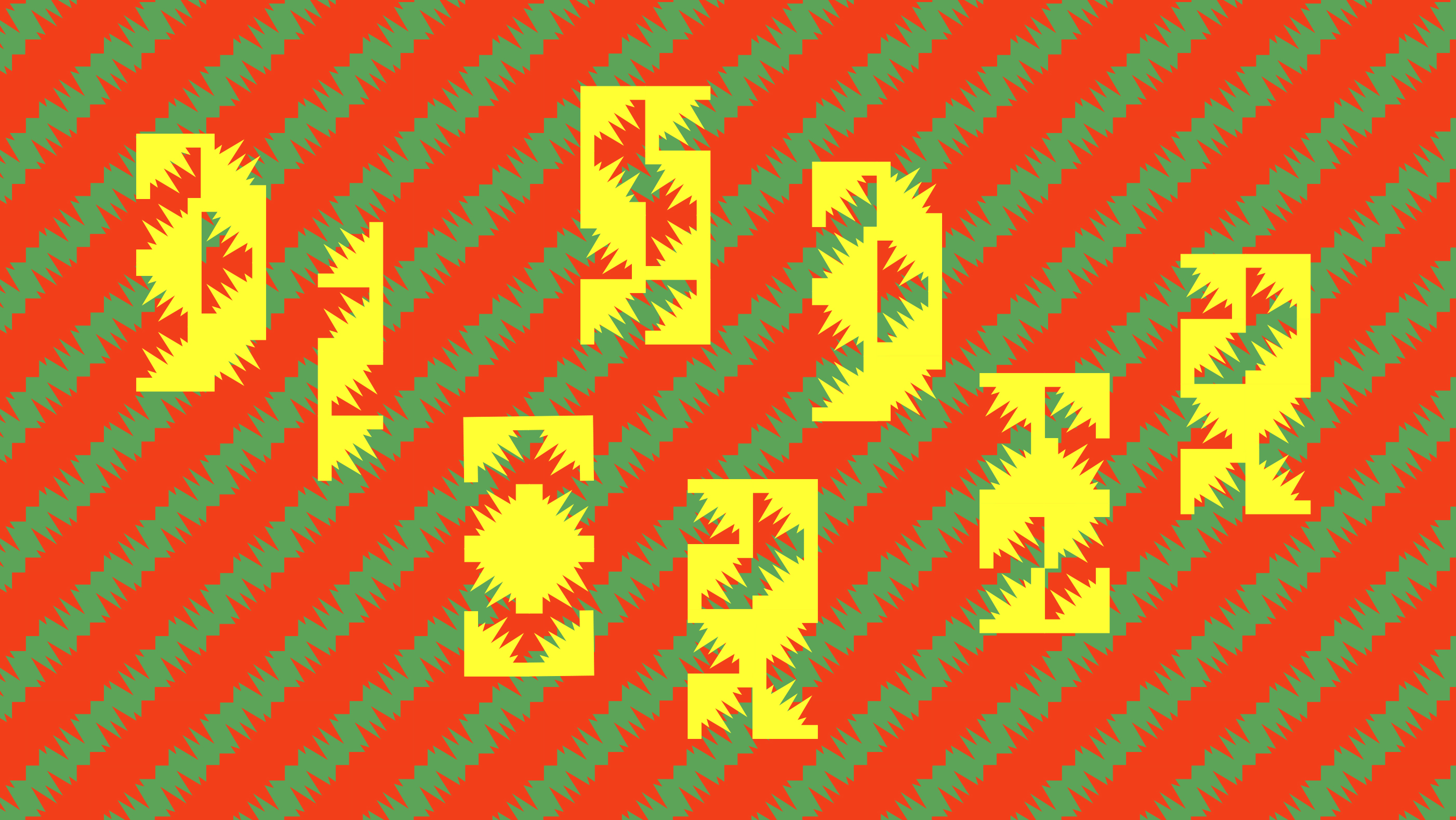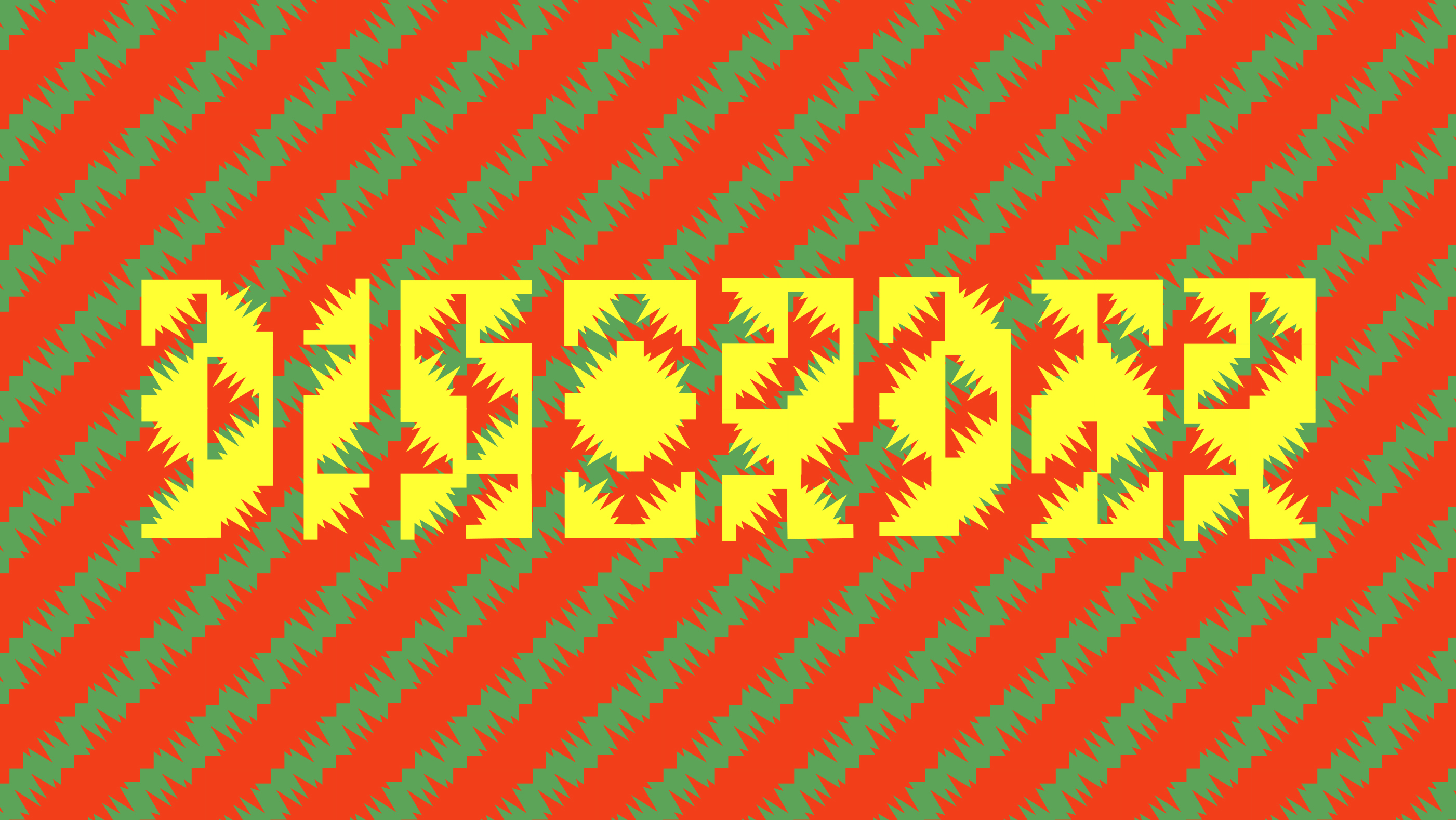
Demons
I've always loved horror movies, and this design is a homage to Demons. I wanted the lettering to fill the canvas with an aggressive feel, using words as a pattern with barbed wire woven between the letters.